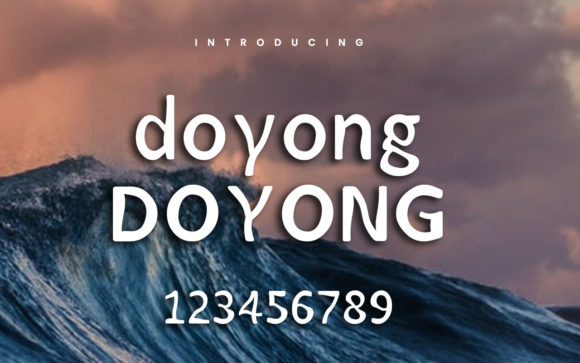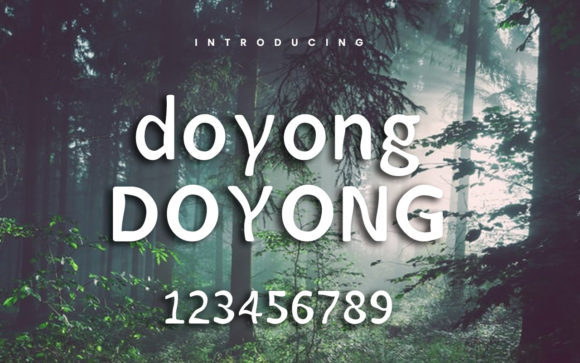
The Doyong Font: A Cool, Wavy Display Font to Elevate Your Creations
I’ll never forget the time I was working on a project for a client who wanted a font that was both fun and sophisticated. I spent hours scouring the internet for the perfect font, but nothing seemed quite right. That was until I stumbled upon the Doyong font. With its unique wavy design, it added a touch of personality to my project that I just couldn’t achieve with other fonts. In this article, I’ll share my experience with the Doyong font, its features, and how to make the most of it in your designs.
An Honest Review of Doyong Font
The Doyong font has quickly become one of my go-to fonts for display purposes. Here’s what I love about it:
- ✨ Unique and eye-catching design that’s perfect for headlines and titles
- ✅ Highly versatile and can be used for a wide range of projects, from branding to packaging
- ⚡️ Works well in both digital and print formats
- 🎉 Fun and playful vibe that’s sure to grab attention
While the Doyong font is amazing, it’s not without its quirks. Here are a few things to keep in mind:
- 🤔 May not be the best choice for body text or smaller font sizes, as it can be a bit difficult to read
- ⚠️ Some characters may not work well in certain contexts, such as in tables or side-by-side text
The Backstory of Doyong Font
The Doyong font was designed by a team of creatives who wanted to create a unique and eye-catching display font. Inspired by the wavy lines of traditional Korean art, the Doyong font is a modern take on classic design elements. With its fun and playful vibe, it’s perfect for designers who want to add a touch of personality to their projects.
| What is the Doyong font? | The Doyong font is a cool, wavy display font that’s perfect for headlines and titles. |